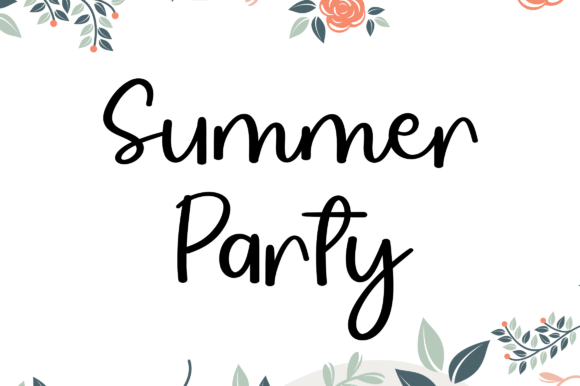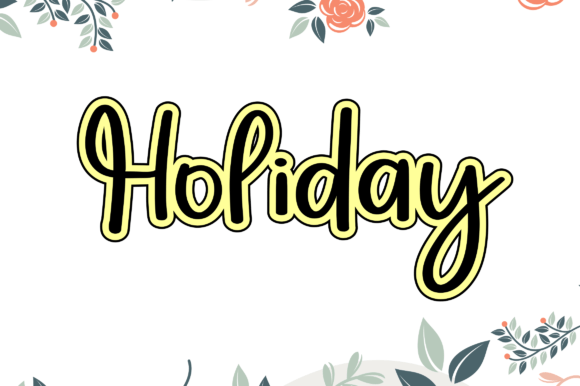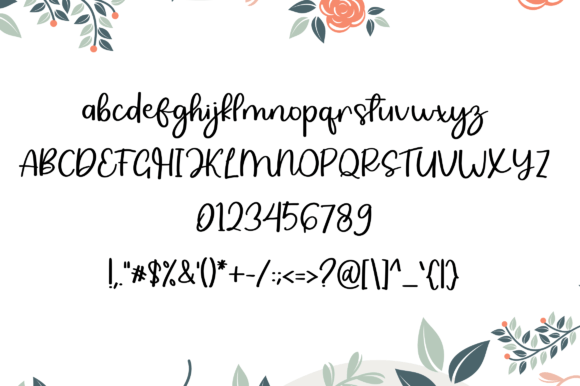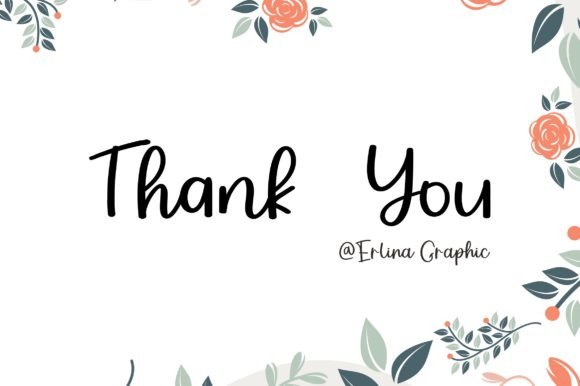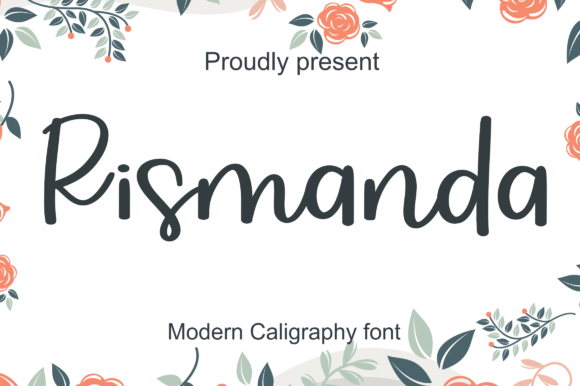
Rismanda Font
About Rismanda Font
“Rismanda” emerges as a stylish handwritten font, characterized by a contemporary atmosphere and impeccable form. Drawing inspiration from timeless classic calligraphy, this font strikes a balance between not being too thin nor too thick, showcasing a carefully crafted design that aims to enhance the beauty of your projects.
The font’s contemporary touch makes it suitable for a variety of design applications. Whether you’re working on digital or print projects, “Rismanda” seamlessly integrates into diverse design scenarios, from website layouts and social media graphics to print materials such as posters, brochures, and more.
With a balance of thickness and variation in its strokes, “Rismanda” is designed to bring a touch of sophistication to your projects. Its versatility allows it to be applied in different contexts, making it a valuable addition to your design toolkit.
Incorporating “Rismanda” into your designs can elevate them from ordinary to extraordinary. The font’s carefully crafted form ensures that it adds a layer of visual appeal, contributing to the overall aesthetic of your creative endeavors.
In summary, “Rismanda” is a stylish handwritten font that blends contemporary elements with timeless calligraphic inspiration. Whether you’re working on commercial projects or personal creative expressions, this font provides a versatile and elegant solution to enhance the beauty of your designs.